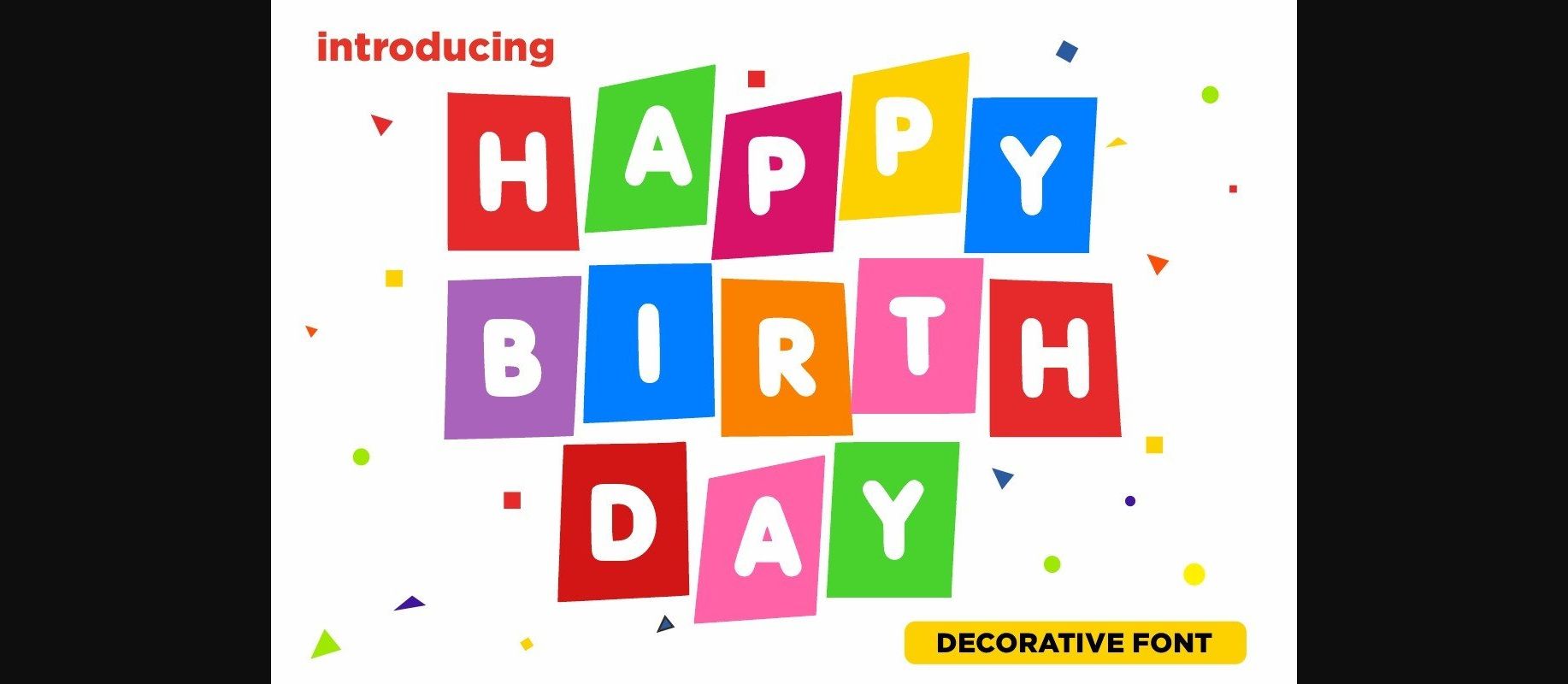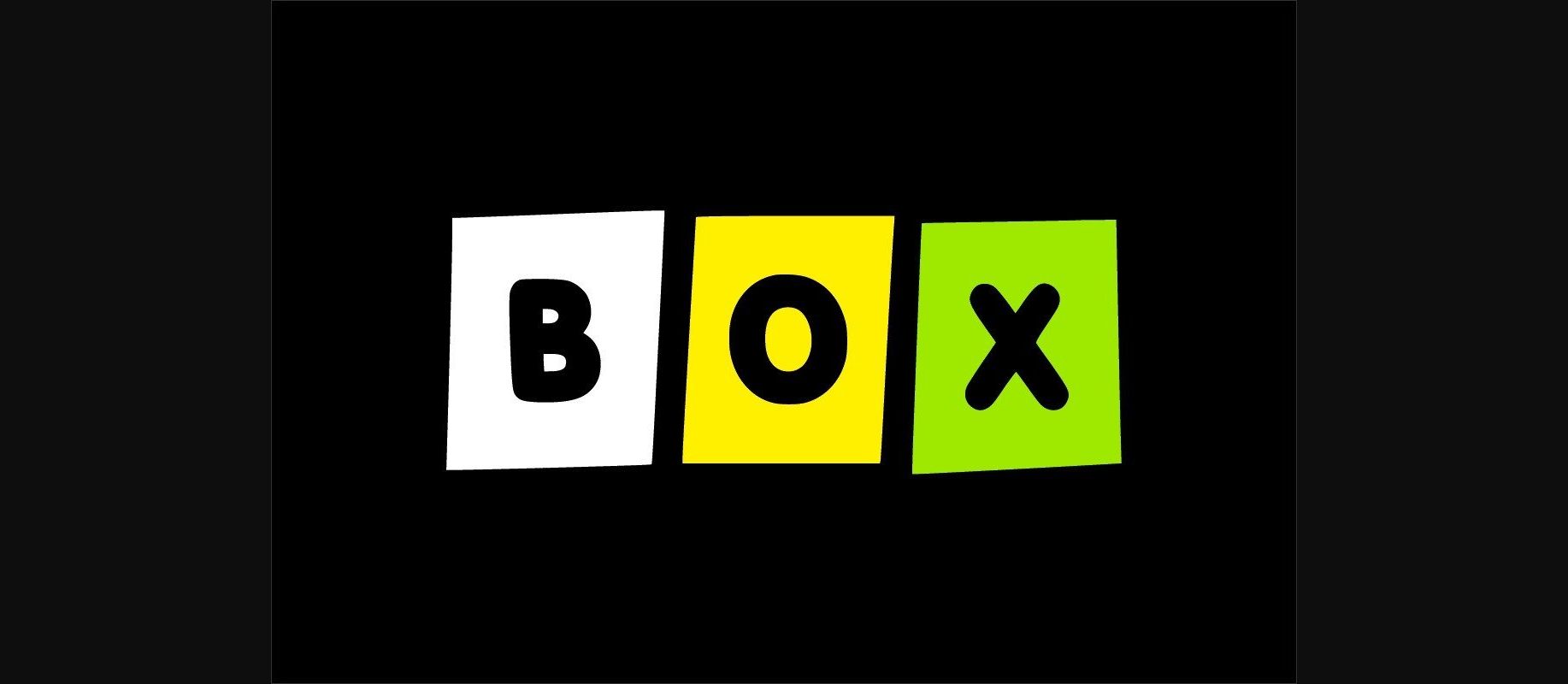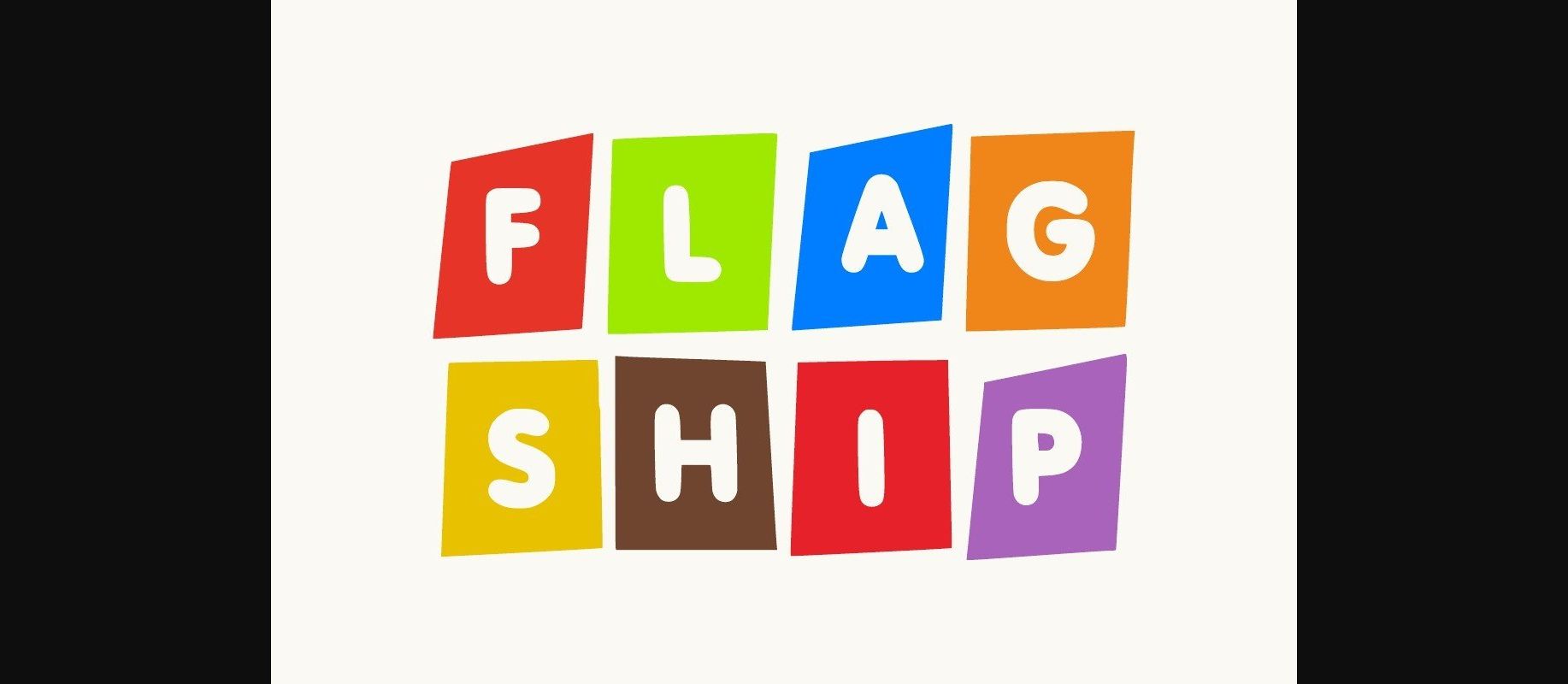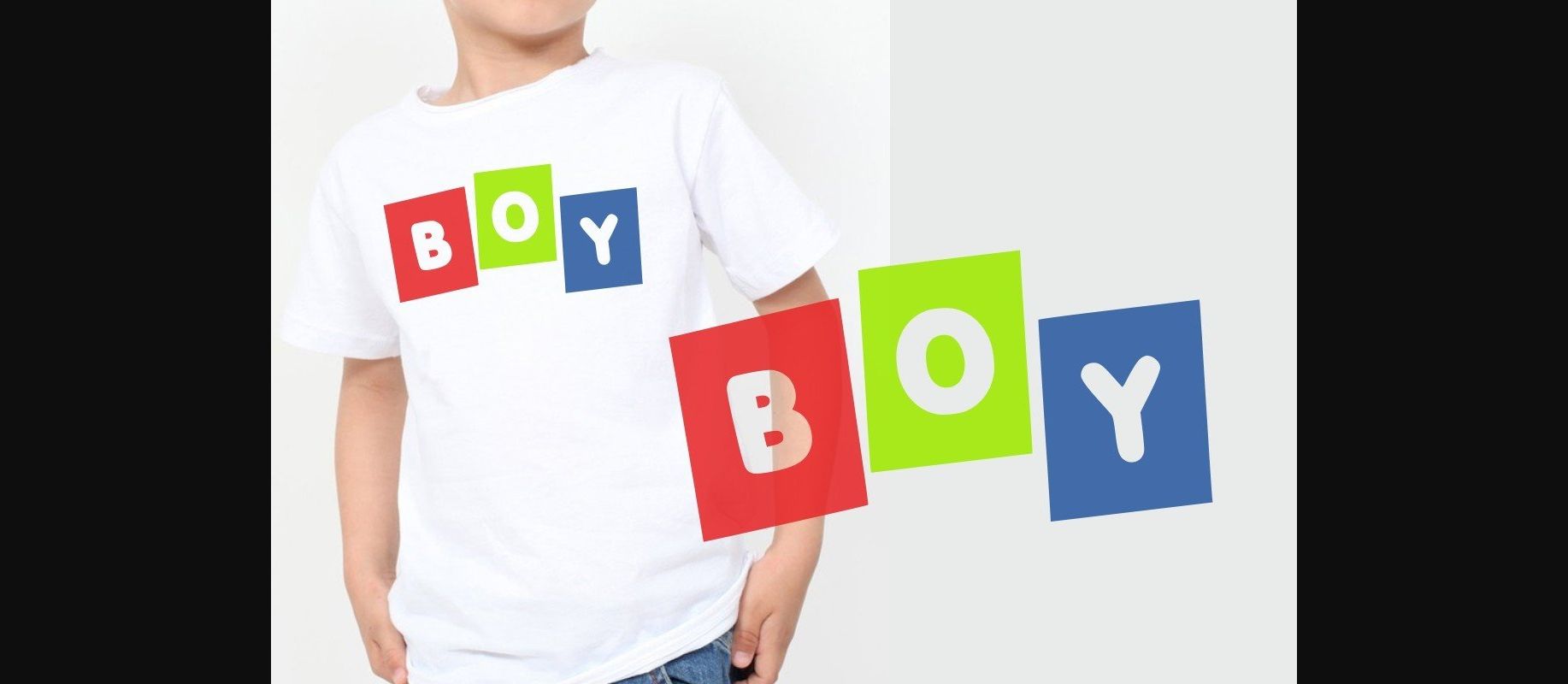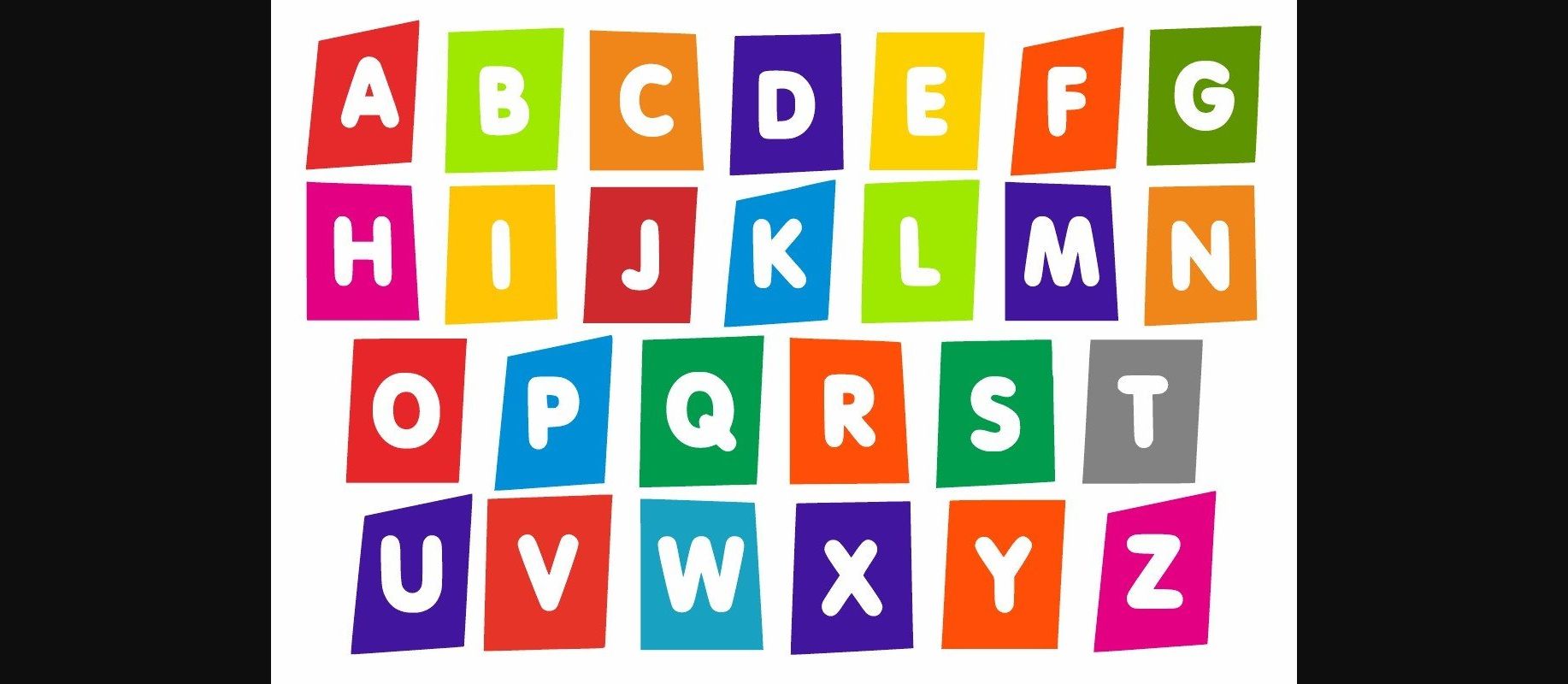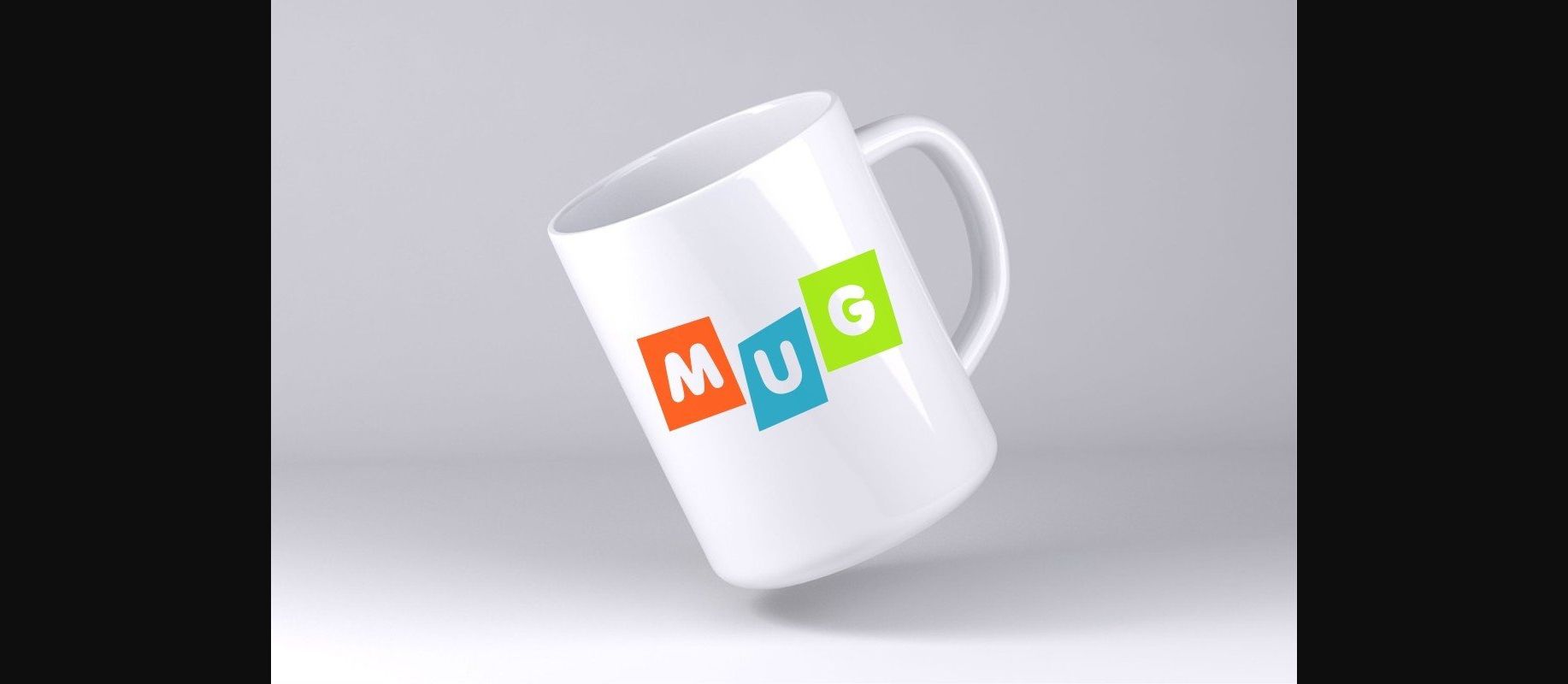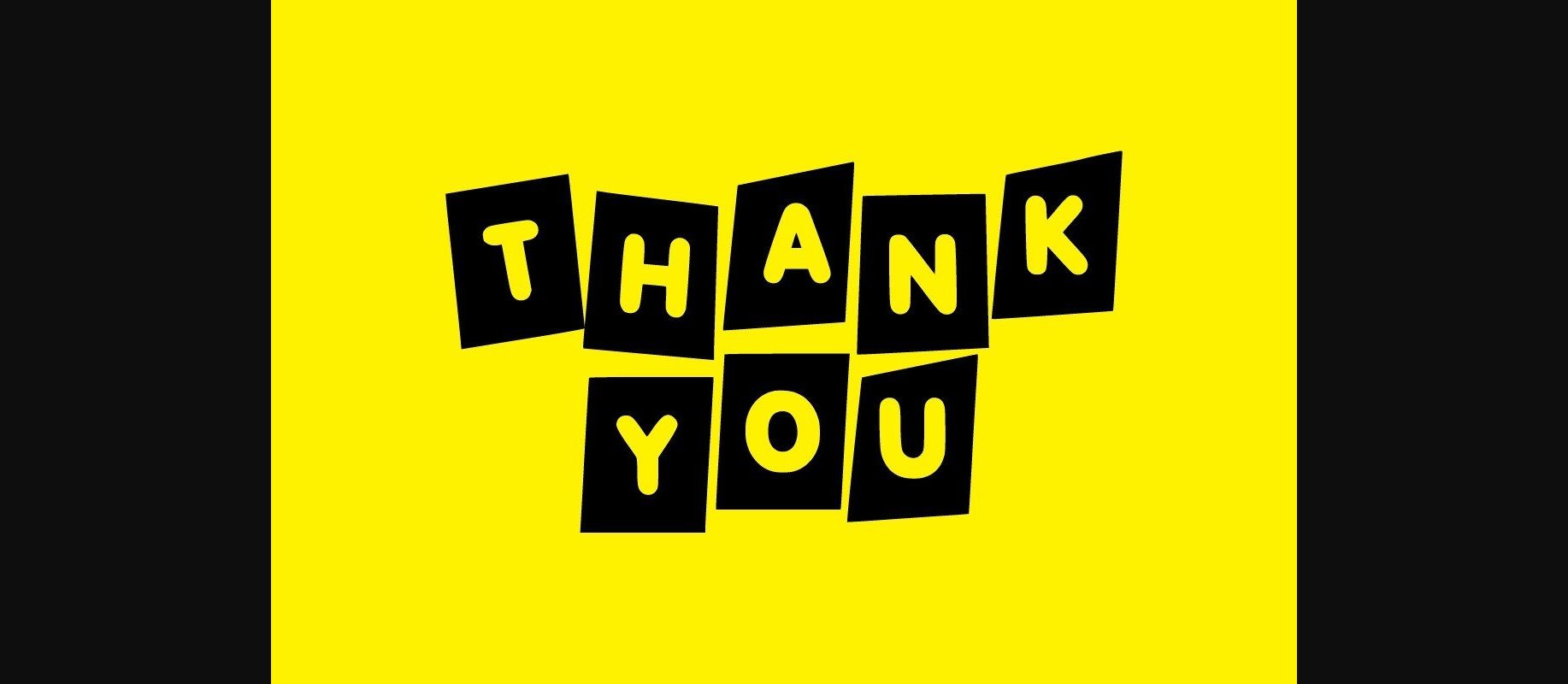
Happy Birth Day Font
About Happy Birth Day Font
Happy Birth Day is a fun and childish decorative font that conveys impeccable friendliness. Whether you’re using it for crafts, digital design, presentations, or making greeting cards, this font has the potential to become your favorite go-to font, no matter the occasion!